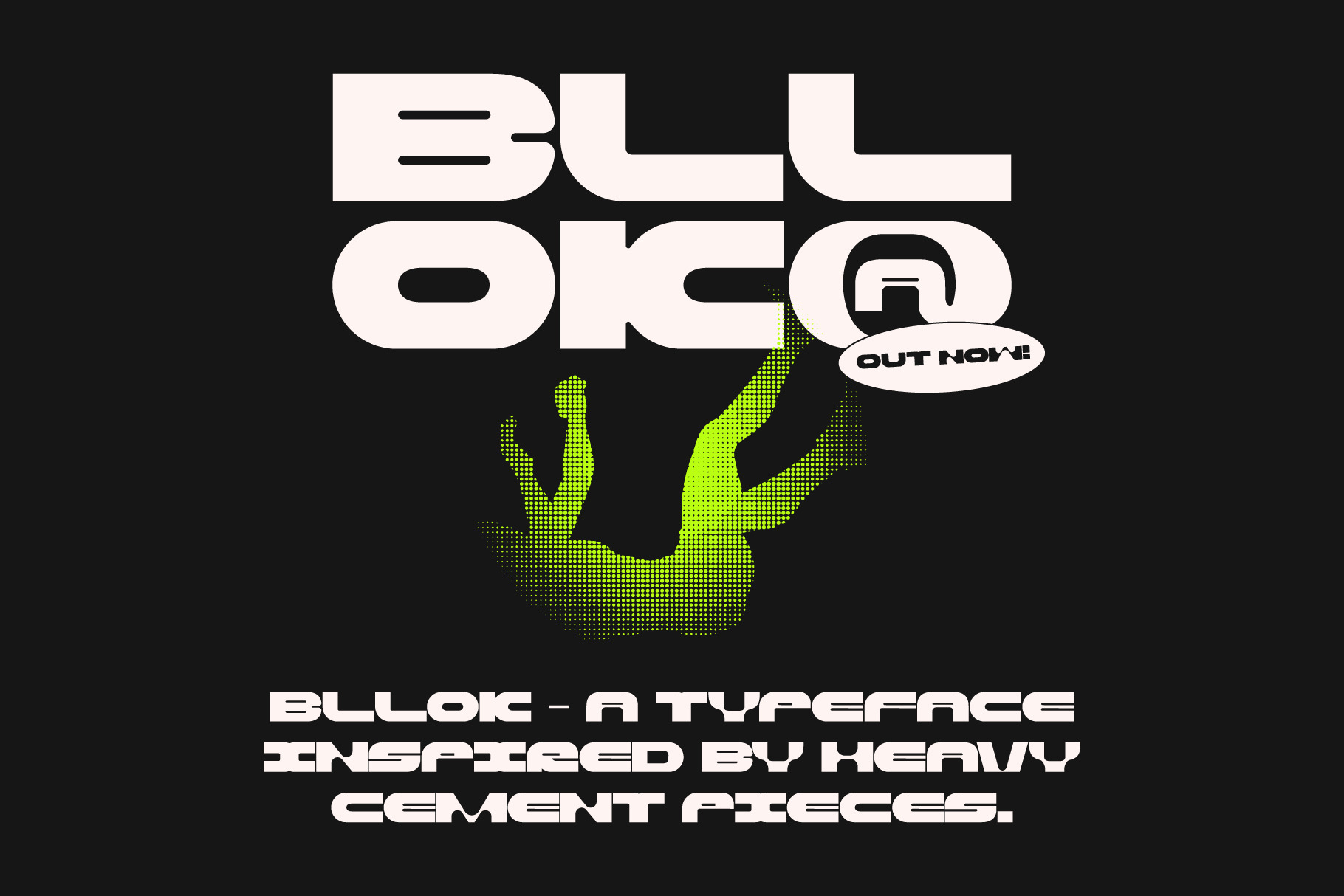
BLLOK - Display Typeface
BLLOK is a chunky, strong & fast paced display typeface. Inspired by heavy cement bricks which can be found all over the place.
It is a mixture of thick & thin combinations while being very fat. The slanted style also features some interesting details which give it a "fast-paced" feeling.
It comes in 1 weight & 2 styles.